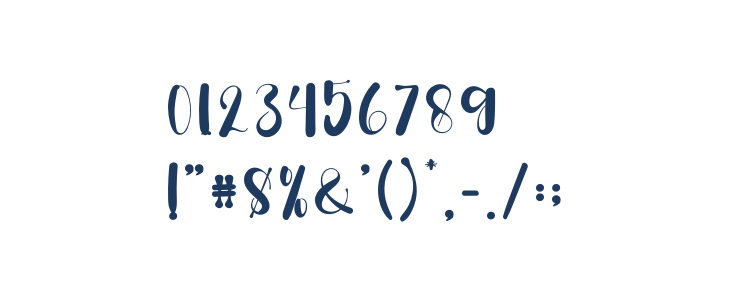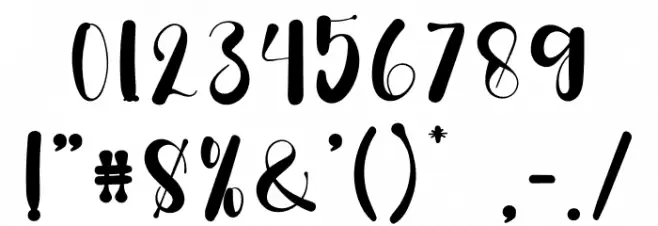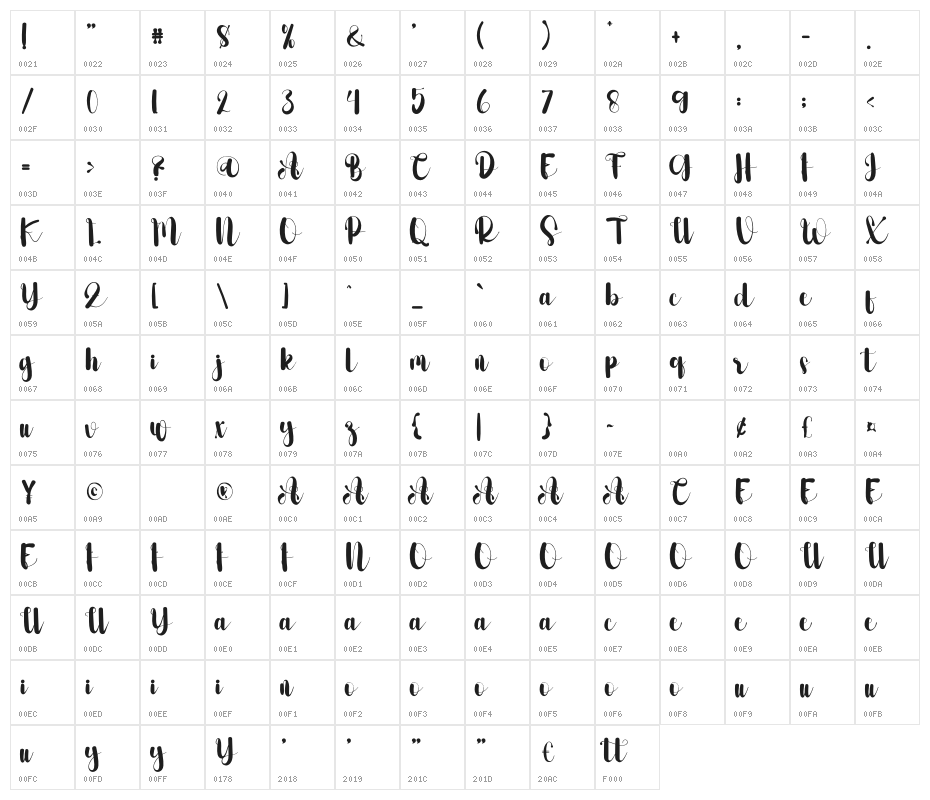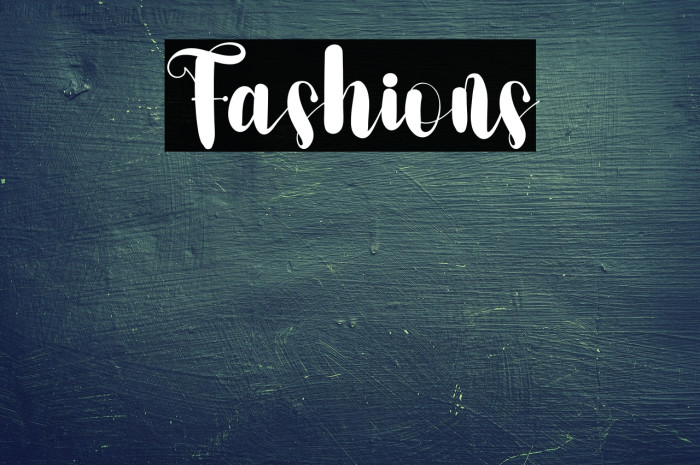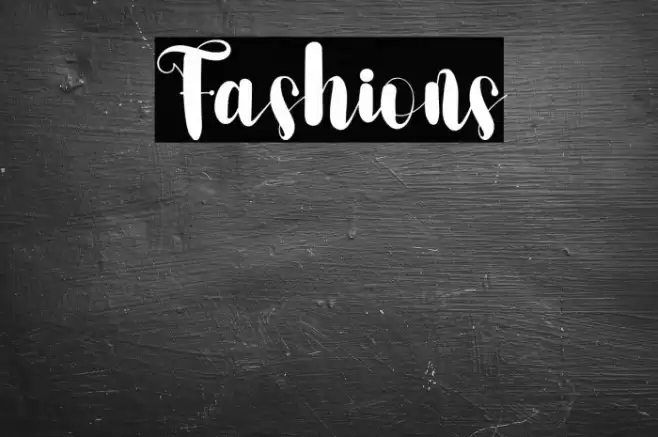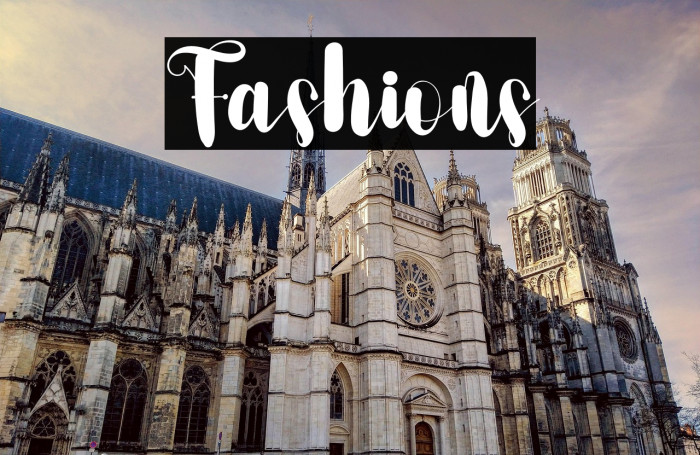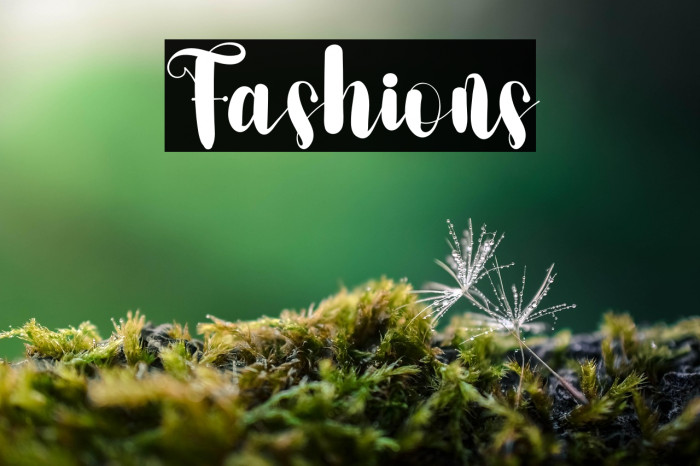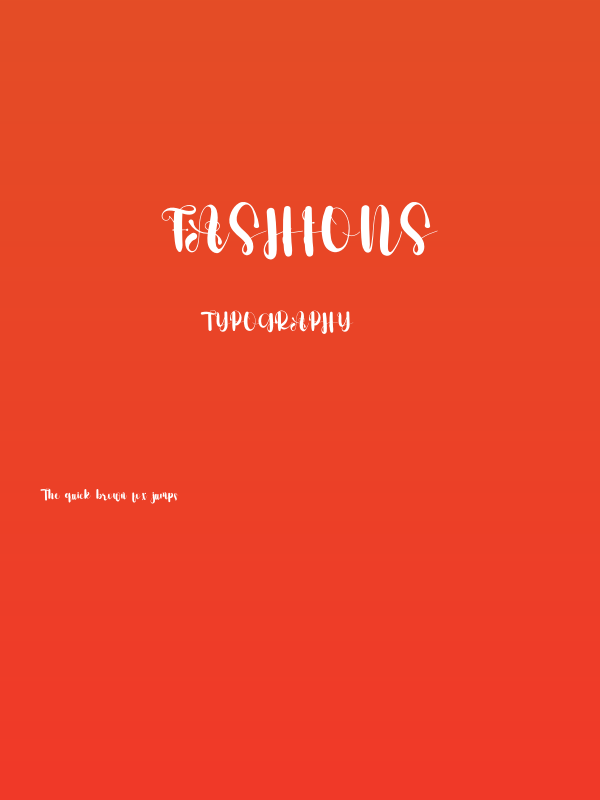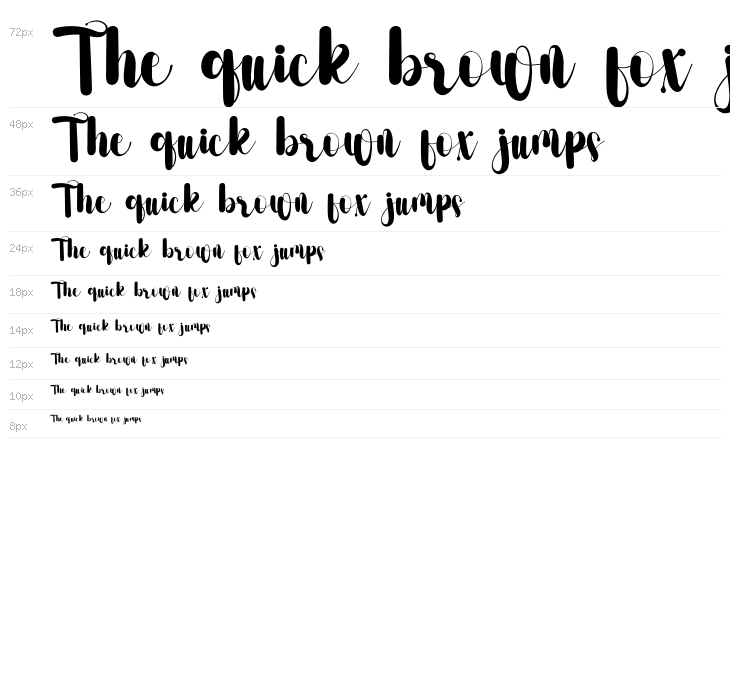
Fashions Font
Fashions Description
This font features a bold and expressive script style with a modern flair. The characters are interconnected with elegant, flowing strokes that create a sense of movement and fluidity. The uppercase letters are particularly ornate, with loops and swirls that add a decorative touch. The lowercase letters maintain a consistent style, complementing the uppercase with their own unique flair. Numbers and special characters are designed to match the overall aesthetic, ensuring a cohesive look across all text. The font's bold weight and high contrast between thick and thin strokes make it stand out, making it ideal for eye-catching designs.